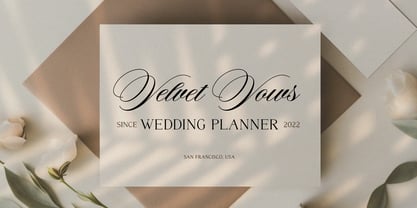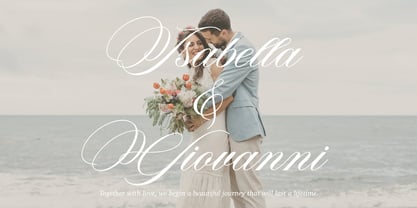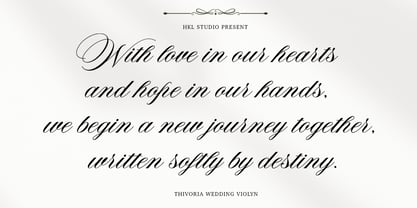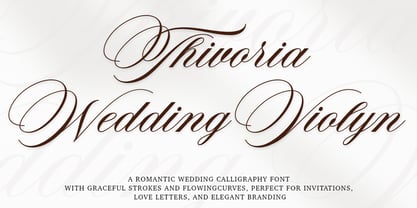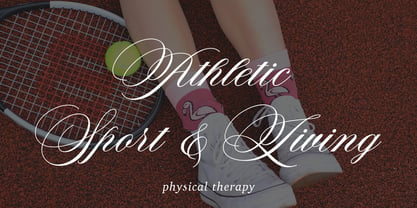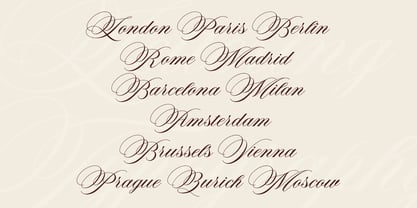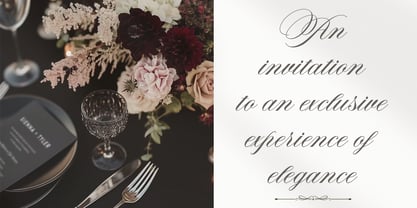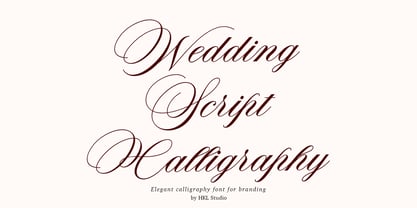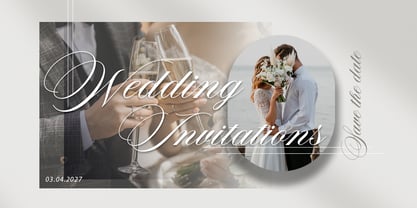
Thivoria Wedding Violyn
by HKL Studio
The Thivoria Wedding Violyn Font Family was designed by T Haikal Budillah and published by HKL Studio. Thivoria Wedding Violyn contains 1 styles.
Thivoria Wedding Violyn – An Elegant Calligraphy Typeface with Timeless Romance and Modern Sophistication Thivoria Wedding Violyn is a refined calligraphy typeface that beautifully blends timeless romantic charm with modern luxury. Designed with meticulous attention to detail, each stroke and curve reflects softness, elegance, and a premium handcrafted feel. This typeface features graceful, flowing letterforms inspired by classic hand-written calligraphy, creating a smooth and harmonious visual rhythm. Violyn Wedding Thivoria is perfectly suited for high-end design projects such as wedding invitations, luxury branding, exclusive logos, premium packaging, fashion editorials, and other creative works that require a romantic yet sophisticated aesthetic. Thivoria Wedding Violyn includes a rich set of stylistic alternates and custom ligatures, offering flexibility and expressive typographic possibilities. These features allow designers to create unique, elegant, and highly personalized compositions while maintaining a polished and professional appearance.
Designers: T Haikal Budillah
Publisher: HKL Studio
Foundry: HKL Studio